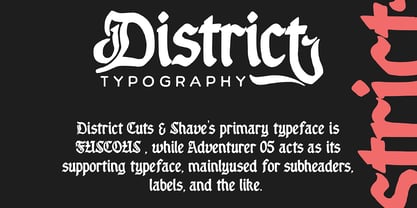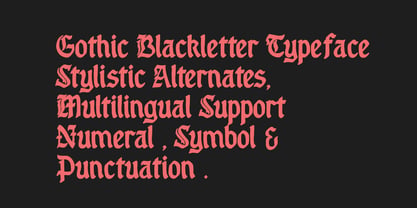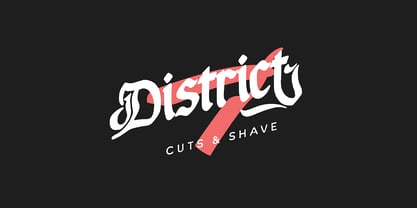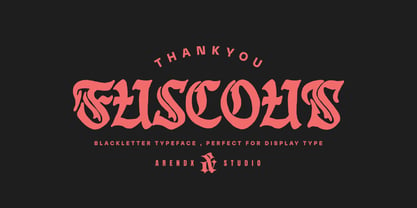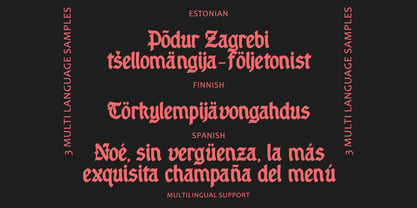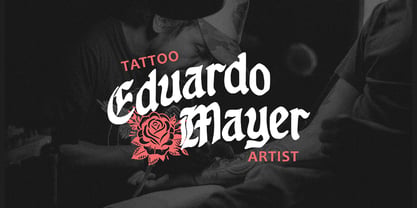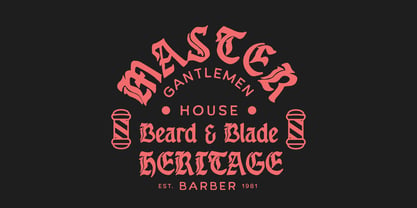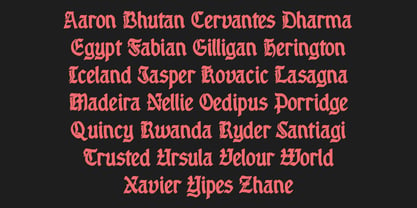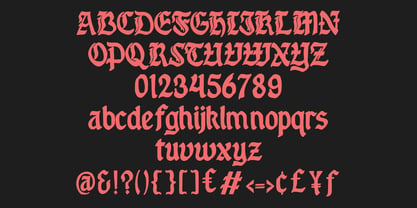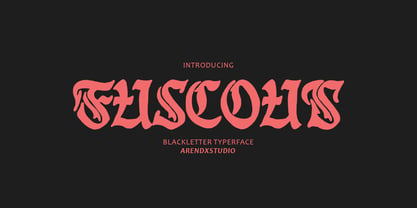
Fuscous
Die Schriftfamilie Fuscous wurde von Asep Rendi entworfen und von Arendxstudio veröffentlicht. Fuscous enthält 1 Stile. Mehr über diese Familie
Fuscous is a bold blackletter typeface that exudes strength, tradition, and artistic expression. Designed to capture attention with its striking forms and intricate style, this font is ideal for projects that demand a gothic, vintage, or edgy atmosphere. Perfect for posters, logos, apparel, music covers, and branding, Fuscous combines historical blackletter aesthetics with a modern edge, making it versatile for both classic and contemporary design work. Its powerful character ensures your typography stands out and delivers a memorable visual impact.
Features : Uppercase and lowercase characters
Numerals and Punctuation
Accents (Supports Multilingual Characters)
Designer: Asep Rendi